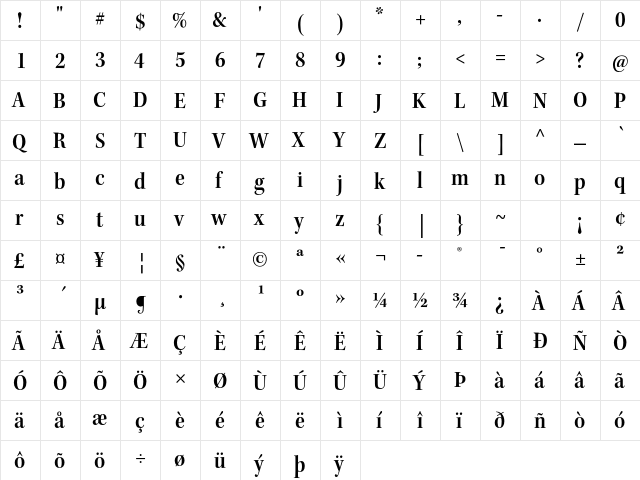
Kepler Std Semibold Semicondensed Subhead Font Preview
Kepler Std Semibold Semicondensed Subhead
Kepler Std Semibold Semicondensed Subhead Font Details
| Style | Semibold Semicondensed Subhead |
| Designer | Robert Slimbach |
Design Context for Kepler Std Typeface
Kepler Std takes a measured approach to typography — its balanced proportions and neutral character make it a reliable workhorse for both digital and print work. The heavy weight commands attention and anchors typographic hierarchies. Its narrow stance lets it pack a punch even in space-constrained designs.